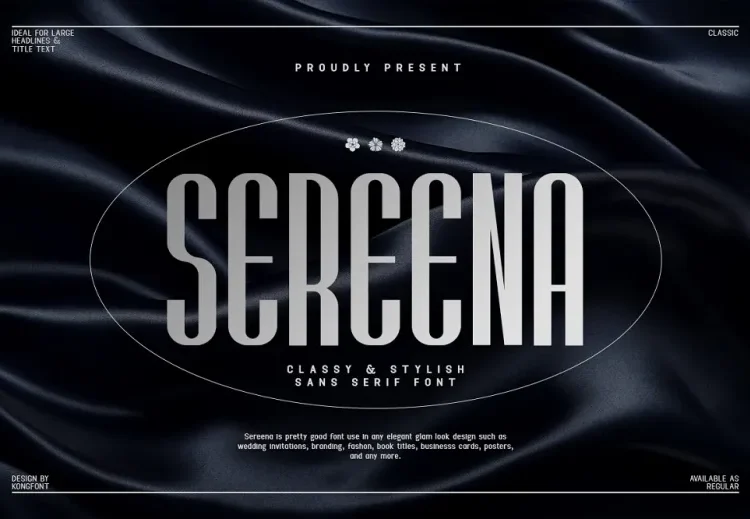
Sereena Font
Sereena is a new sans serif font family that beautifully blends elegance with simplicity, offering a thick, contemporary feel that makes it stand out in the realm of modern typography. Designed to cater to those who appreciate the clean and minimalistic look of sans serif fonts, Sereena provides a refined option for designers who want their text to convey a sophisticated yet straightforward message. Its design is intentionally streamlined, avoiding unnecessary extra characters, which allows it to maintain a crisp and clear appearance in both small and large text sizes.
One of the defining features of Sereena is its versatility, making it an ideal choice for a wide range of design applications. Whether you’re working on branding projects or seeking a font that will harmonize with other design elements, Sereena delivers a unique touch that enhances the overall visual appeal. Its thick, contemporary style ensures that it remains legible and impactful, no matter the context. This makes it an excellent choice for logos, slogans, and corporate identities that require a font with a distinct personality.
Sereena’s elegance extends beyond branding to other areas such as fashion and advertising. The font’s clean lines and modern aesthetic make it a perfect match for clothing labels, posters, banners, and other promotional materials. Its ability to complement and elevate various items demonstrates its adaptability and its potential to become a staple in your design toolkit. Sereena’s ability to balance simplicity with sophistication ensures that it can seamlessly integrate into a wide range of projects, adding a touch of modern elegance to everything it graces.